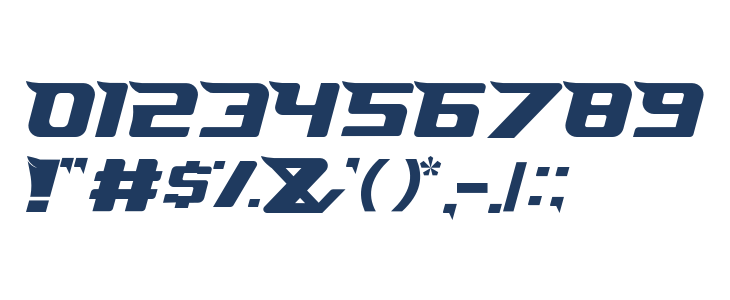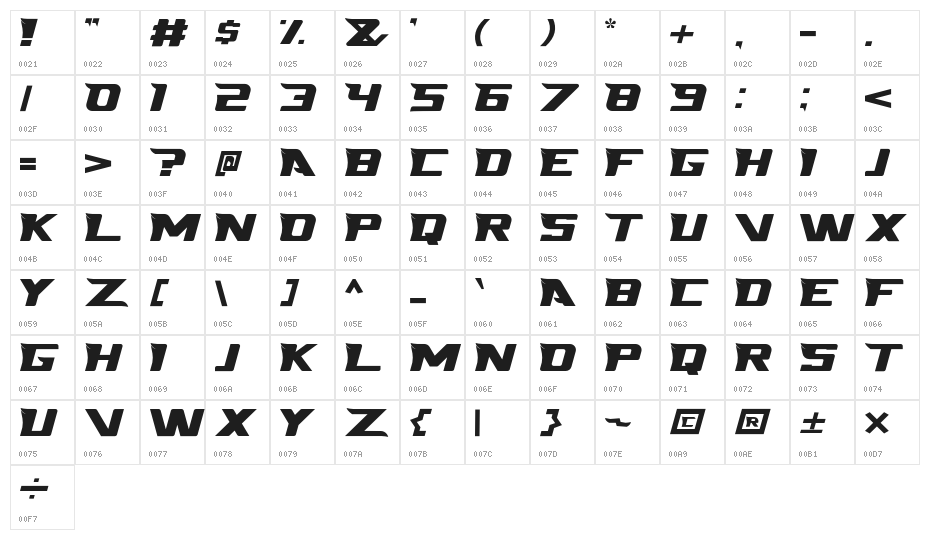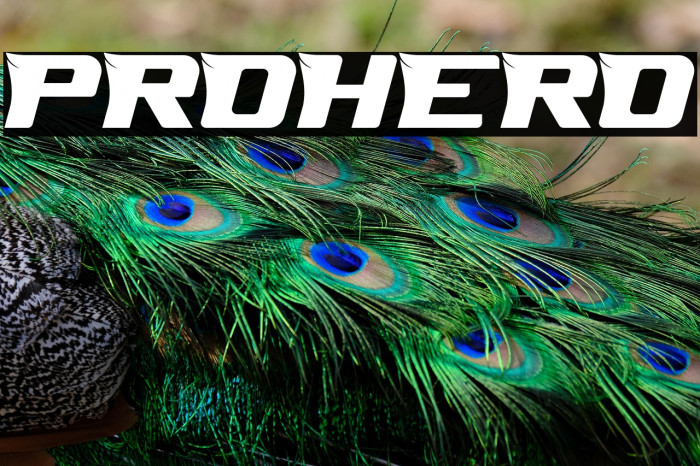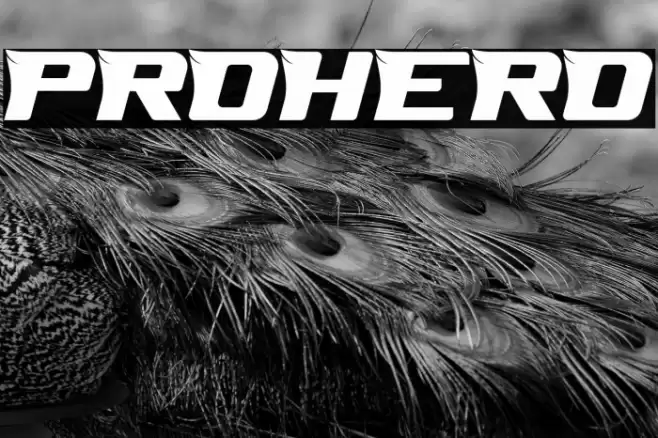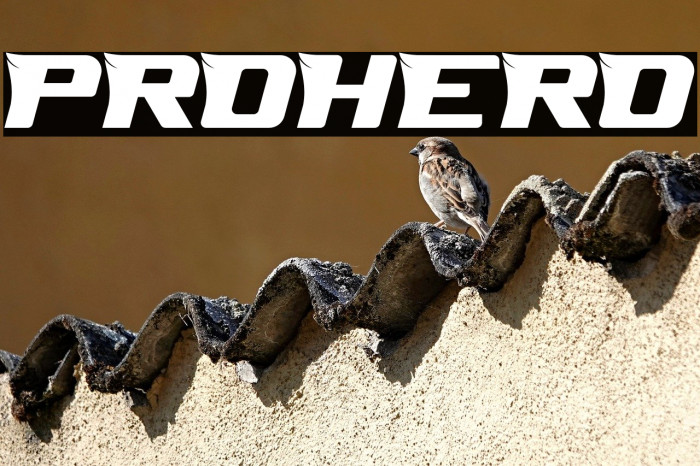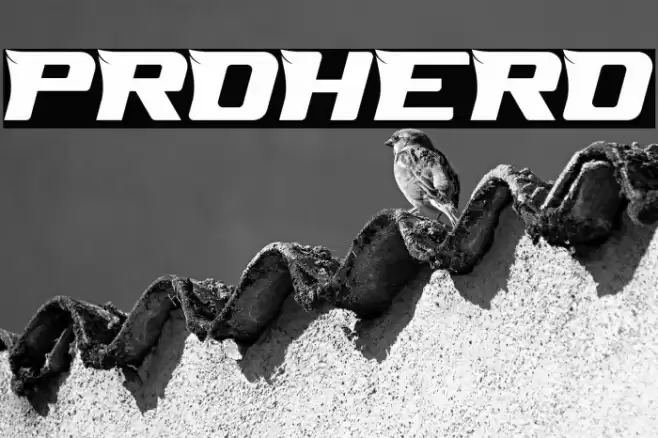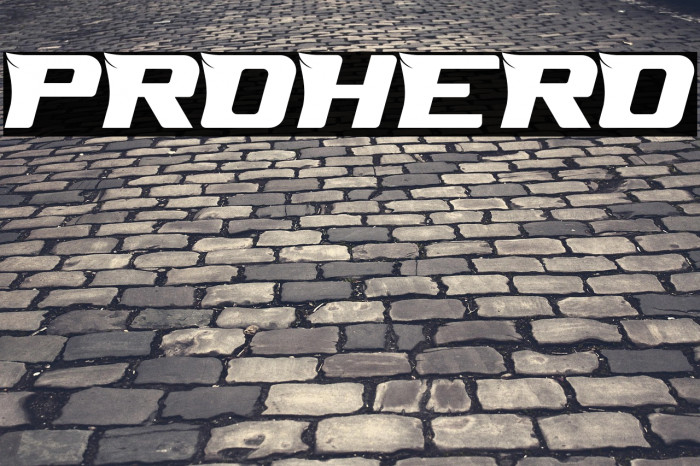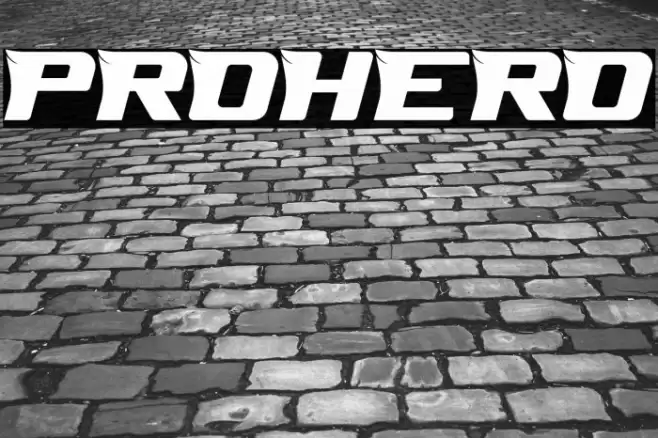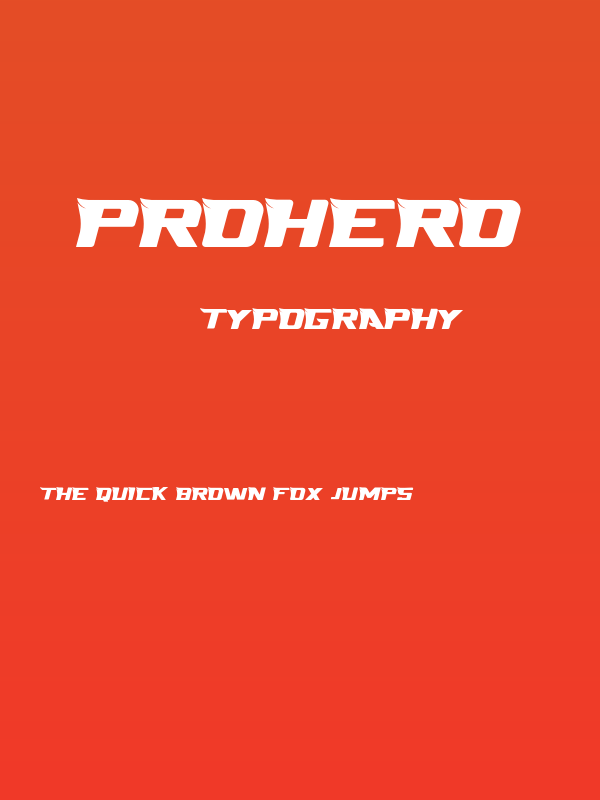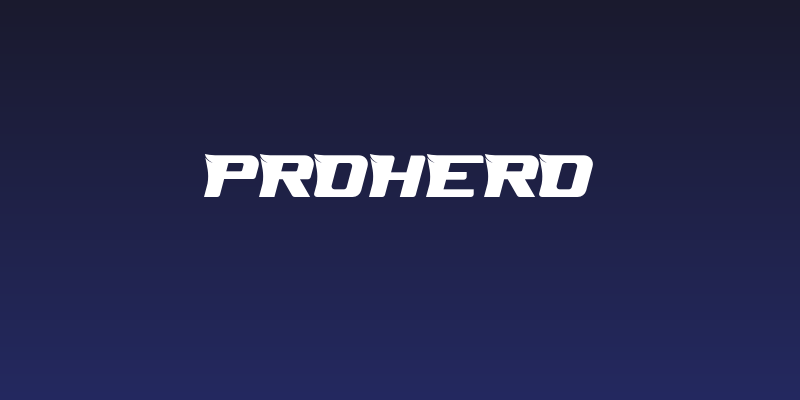
PROHERO Font
PROHERO Description
This font features a bold and dynamic design with sharp, angular edges that give it a futuristic and aggressive appearance. The characters are slightly slanted, adding a sense of motion and energy. The strokes are thick and consistent, providing a strong visual impact. The overall style is reminiscent of action-oriented themes, making it suitable for projects that require a bold statement. The uppercase and lowercase letters maintain a uniform style, ensuring readability while maintaining the font's unique character. The numerals and special characters are designed to match the overall aesthetic, with similar angular and bold features.
| Overall Style | Futuristic, Dynamic |
| Proposed Projects | Ideal for video game titles, sports branding, action movie posters, and dynamic logo designs. |